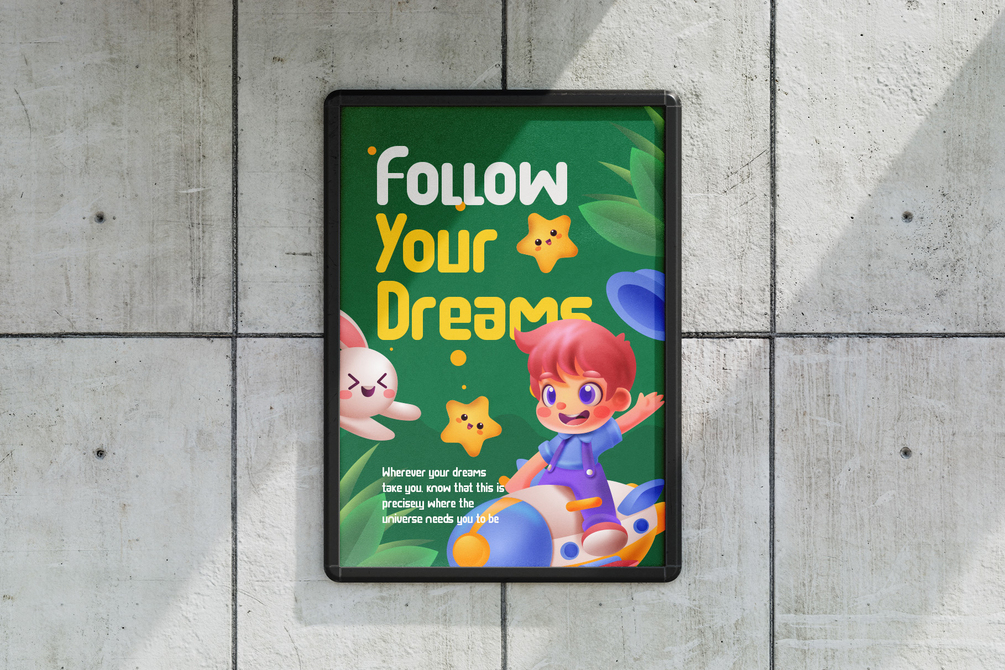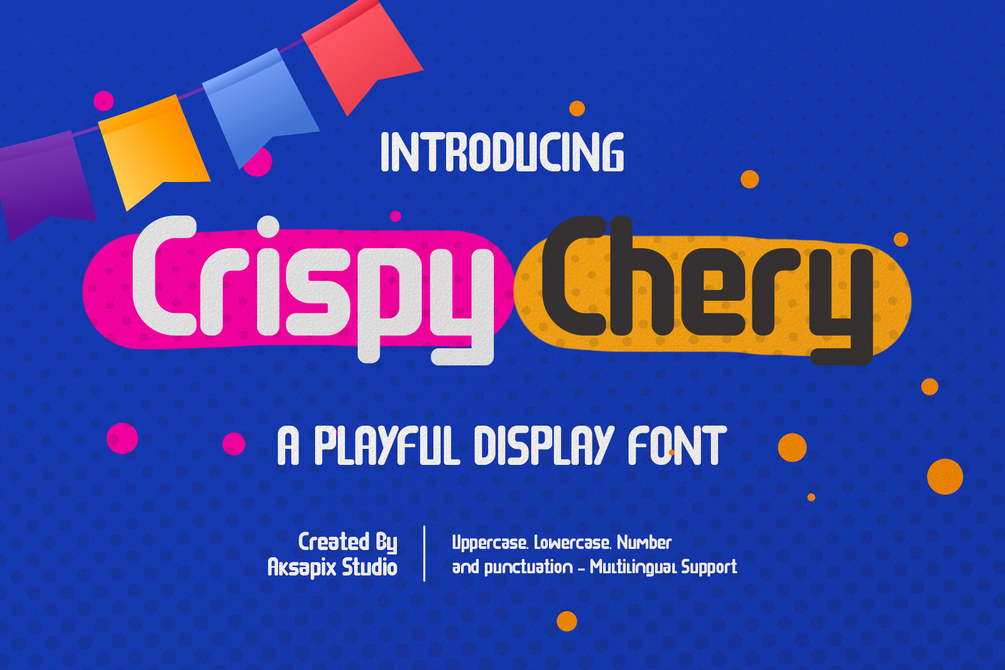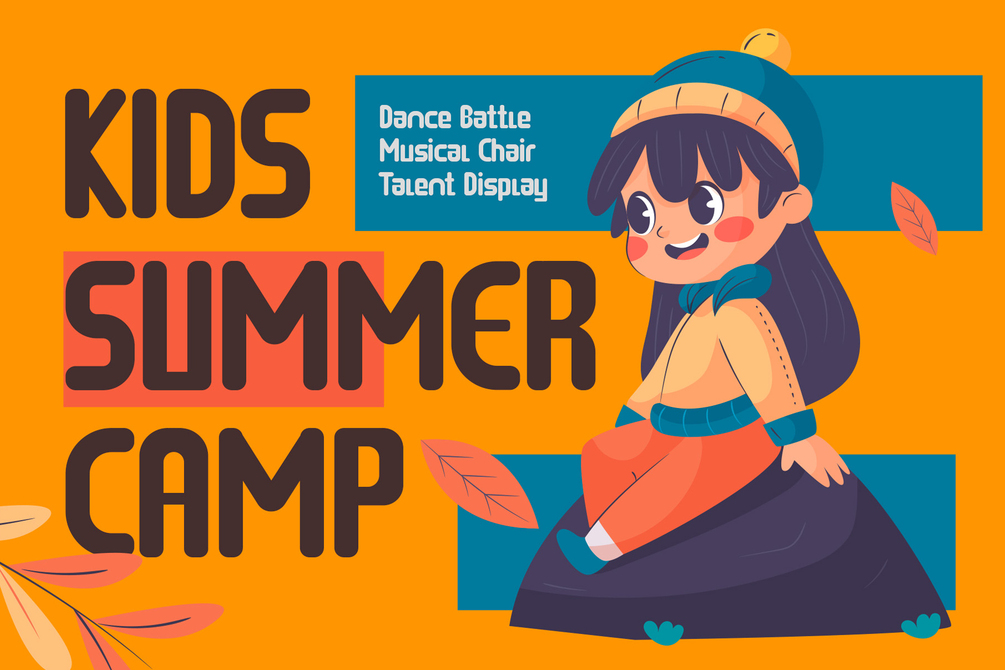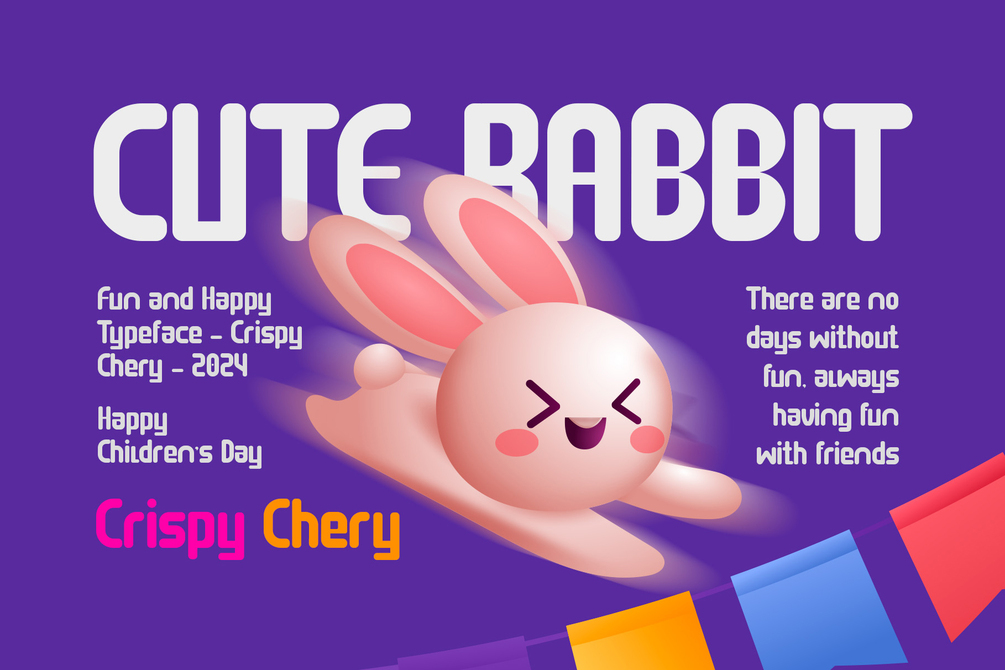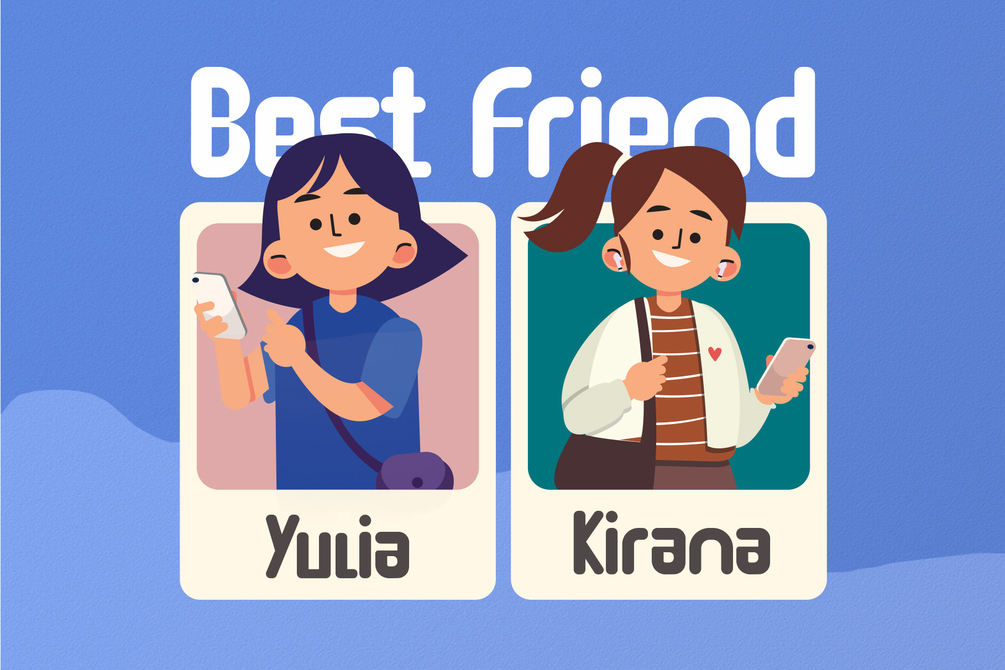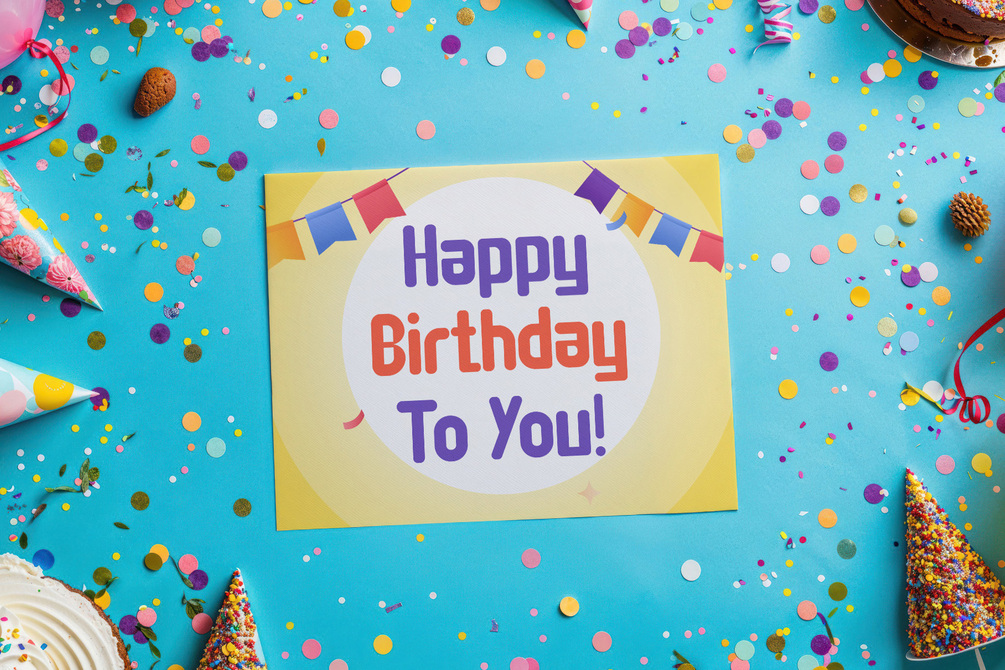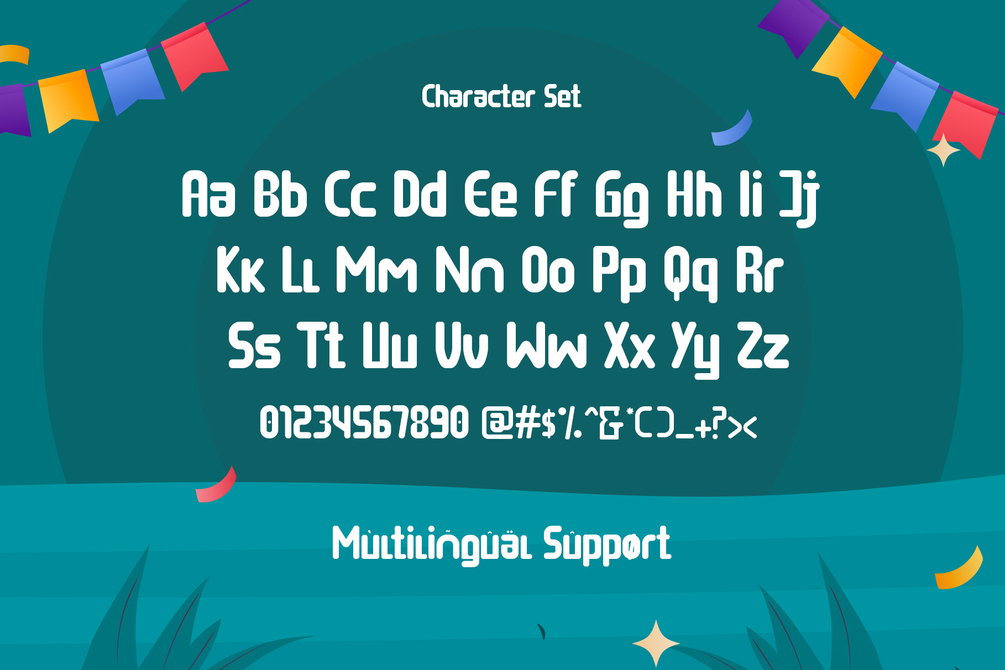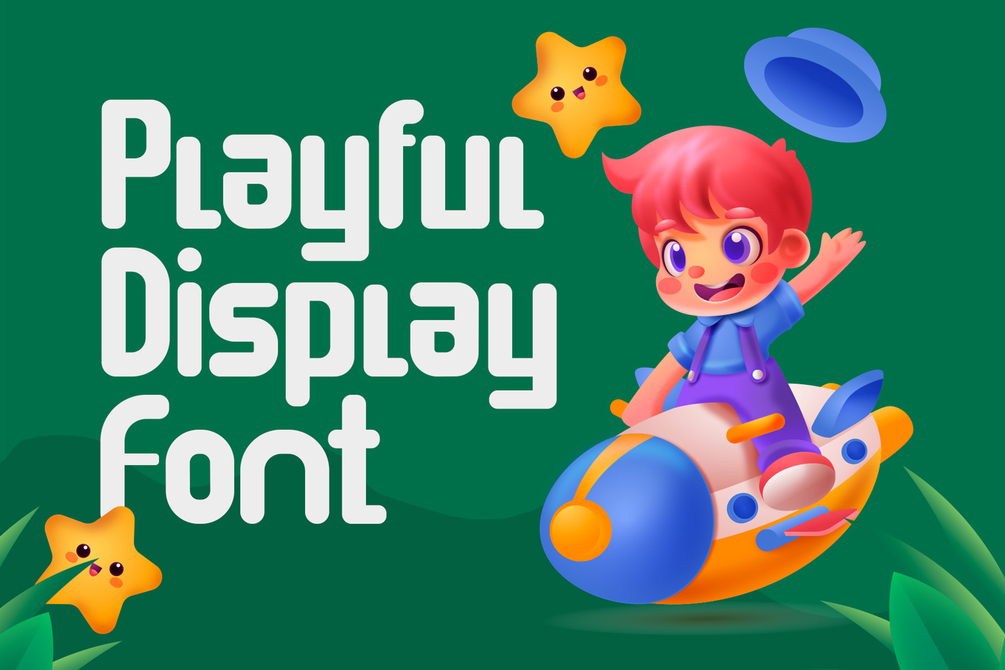
Crispy Chery - Playful Display Font
Introducing Crispy Chery - Playful Display Font, a fun and vibrant typeface that brings a splash of joy to any design project. With its lively characters and whimsical style, Crispy Chery is perfect for creating eye-catching designs that stand out. This font includes a full set of standard characters (uppercase, lowercase, numbers, and punctuation) and offers multilingual support, making it versatile and accessible for various creative endeavors.
+ Uppercase & Lowercase
+ Punctuation & Numbers
+ Multilingual Support
+ Standard Characters: Includes uppercase, lowercase, numbers, and punctuation to meet all your design needs.
Perfect For:
- Children's Books
- Party Invitations
- Social Media Graphics
- Posters and Flyers
- Branding and Logos
Add a touch of playfulness to your designs with Crispy Chery - Playful Display Font. Whether you’re designing for kids, planning a fun event, or creating vibrant social media posts, this font adds a cheerful and energetic vibe to every project.